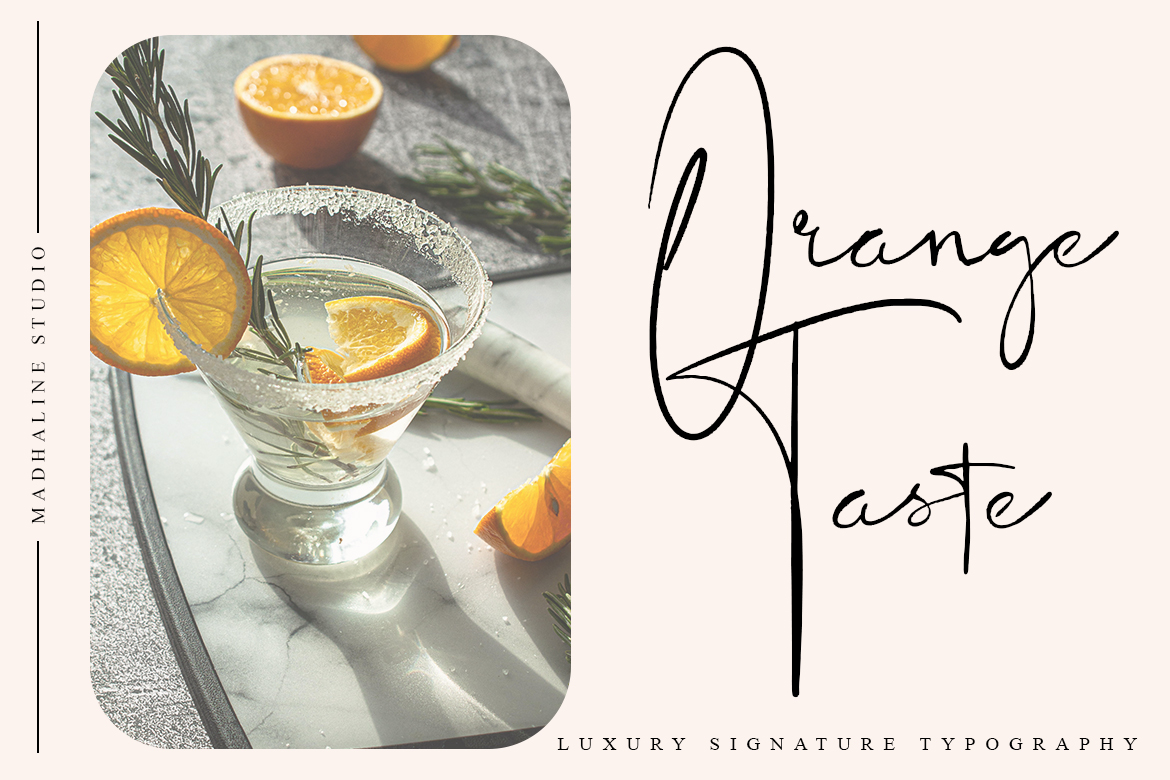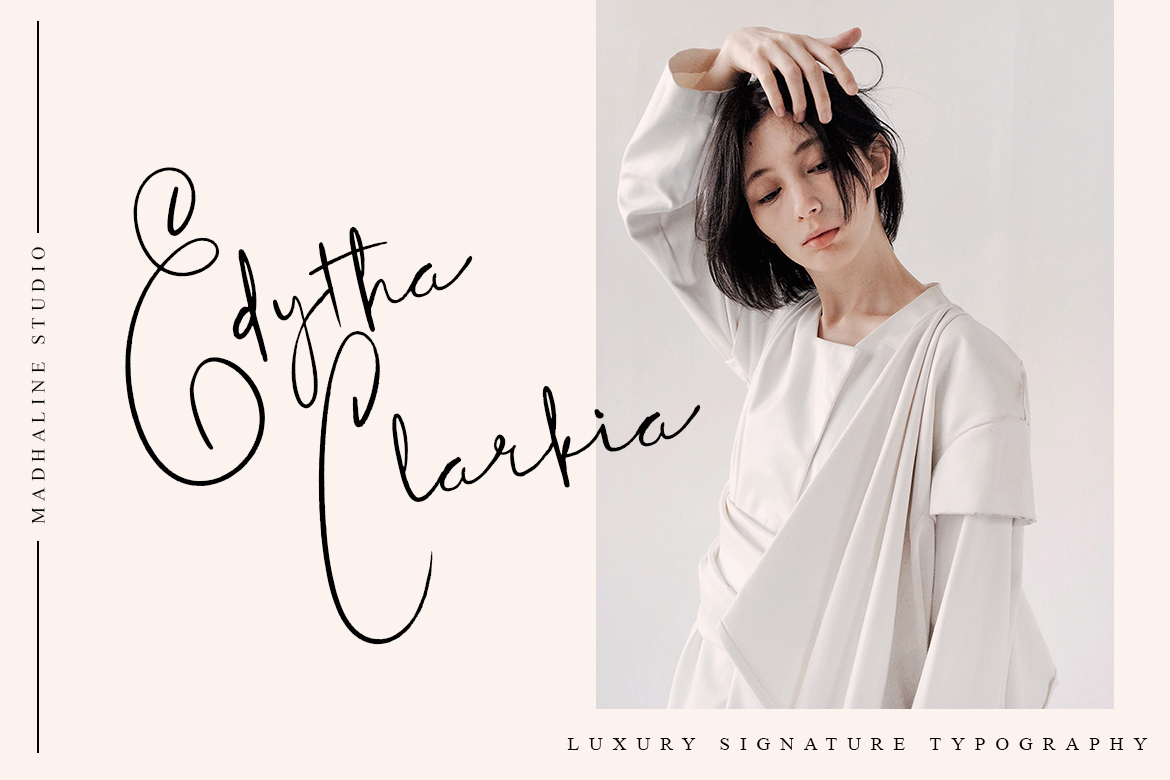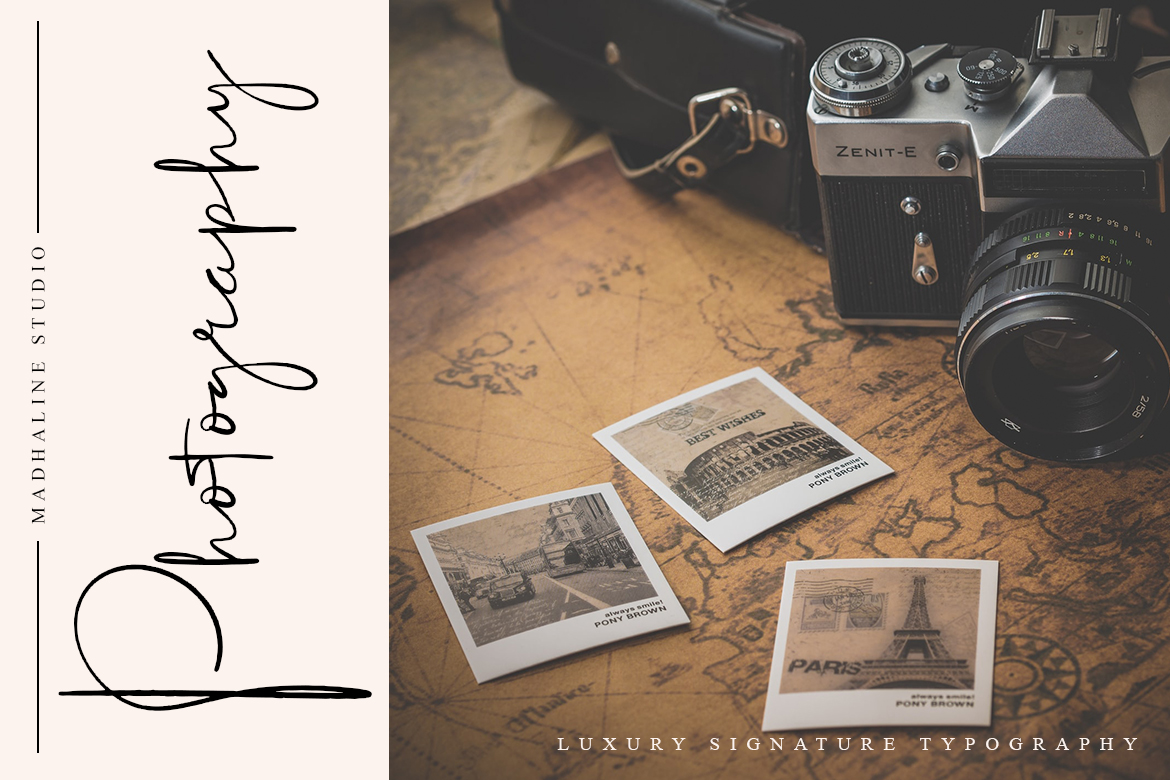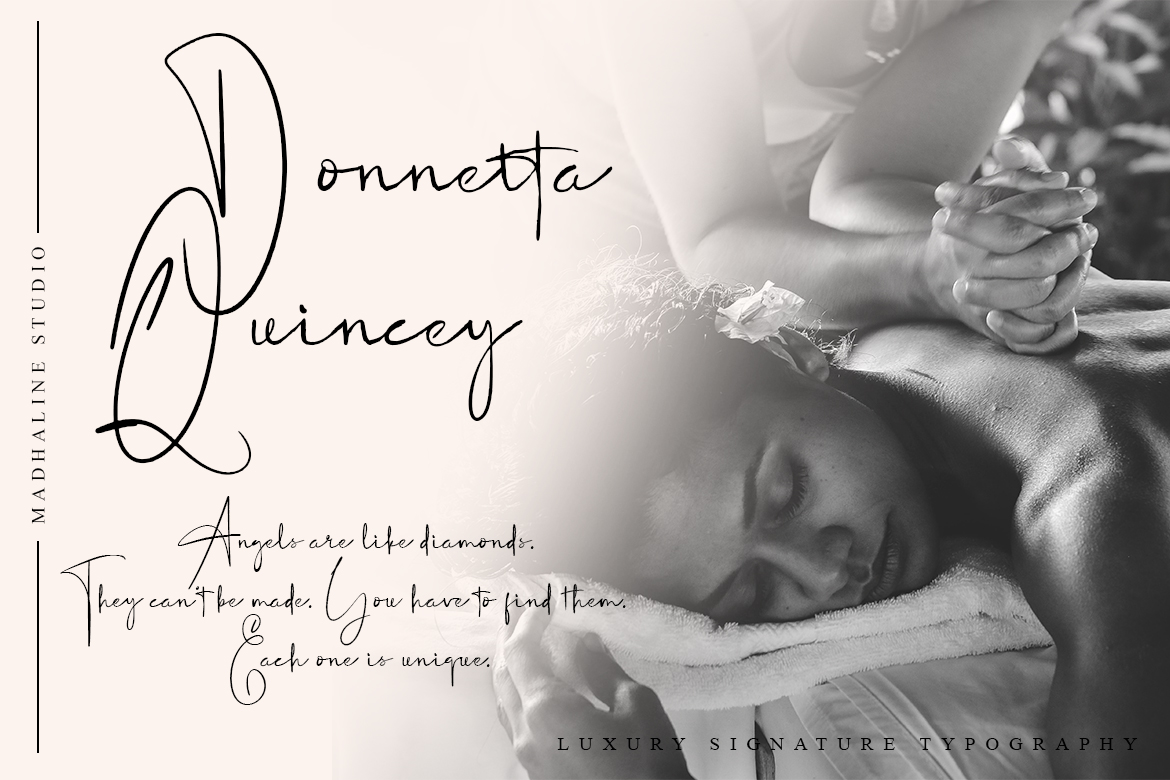
Granny’s Flower Font
Granny’s Flower Font is a gorgeous script font. It looks great for photography, watermark, social media posts, advertisements, logos & branding, invitation, product designs, label, stationery, wedding designs, product packaging, special events or anything that need handwriting taste.
Madhaline Studio